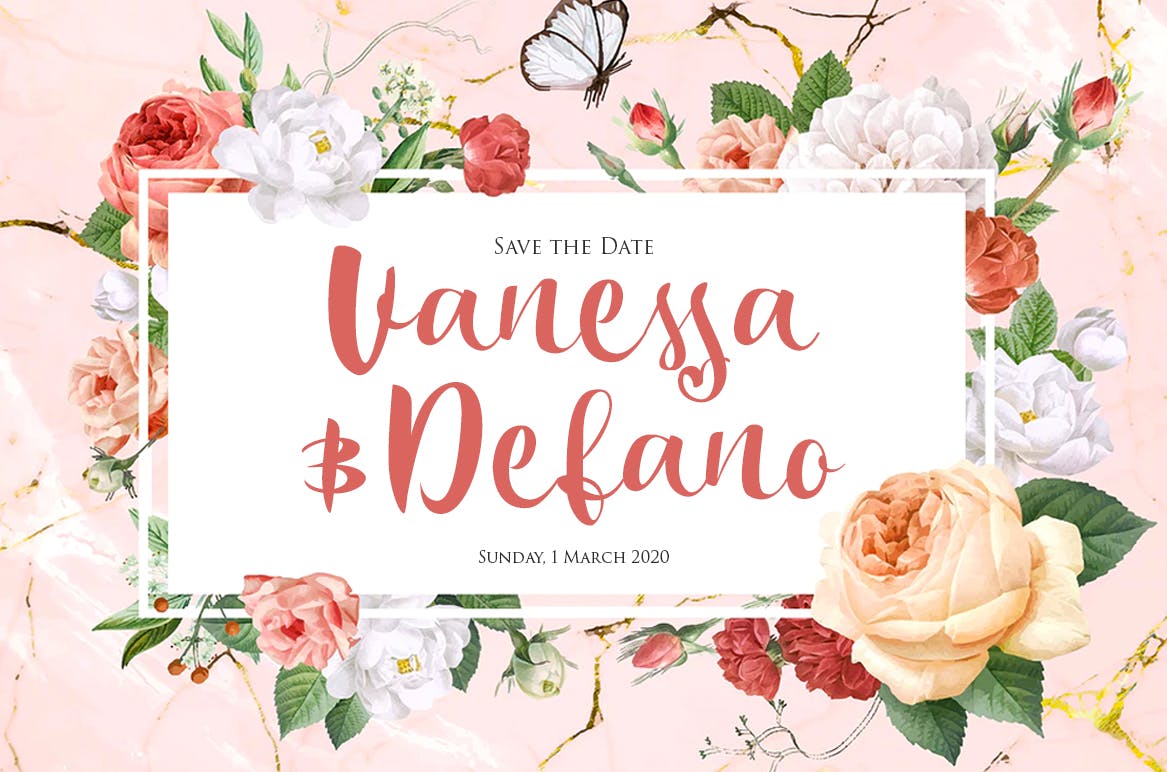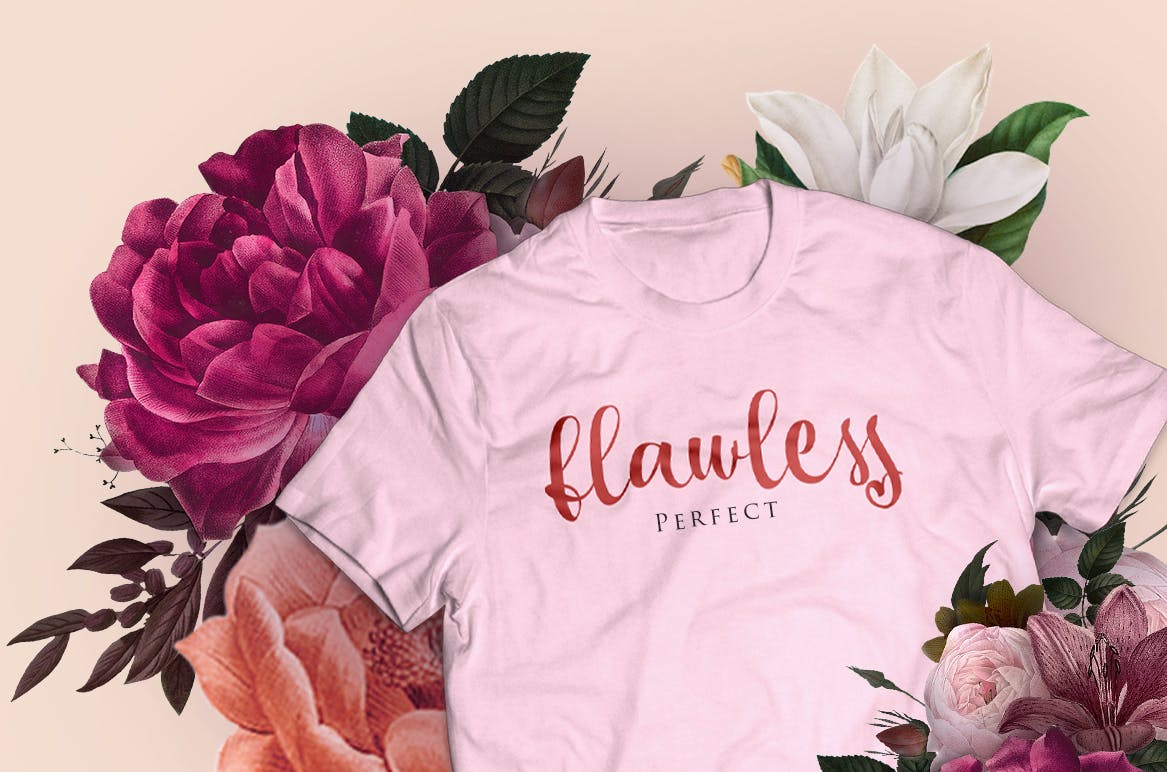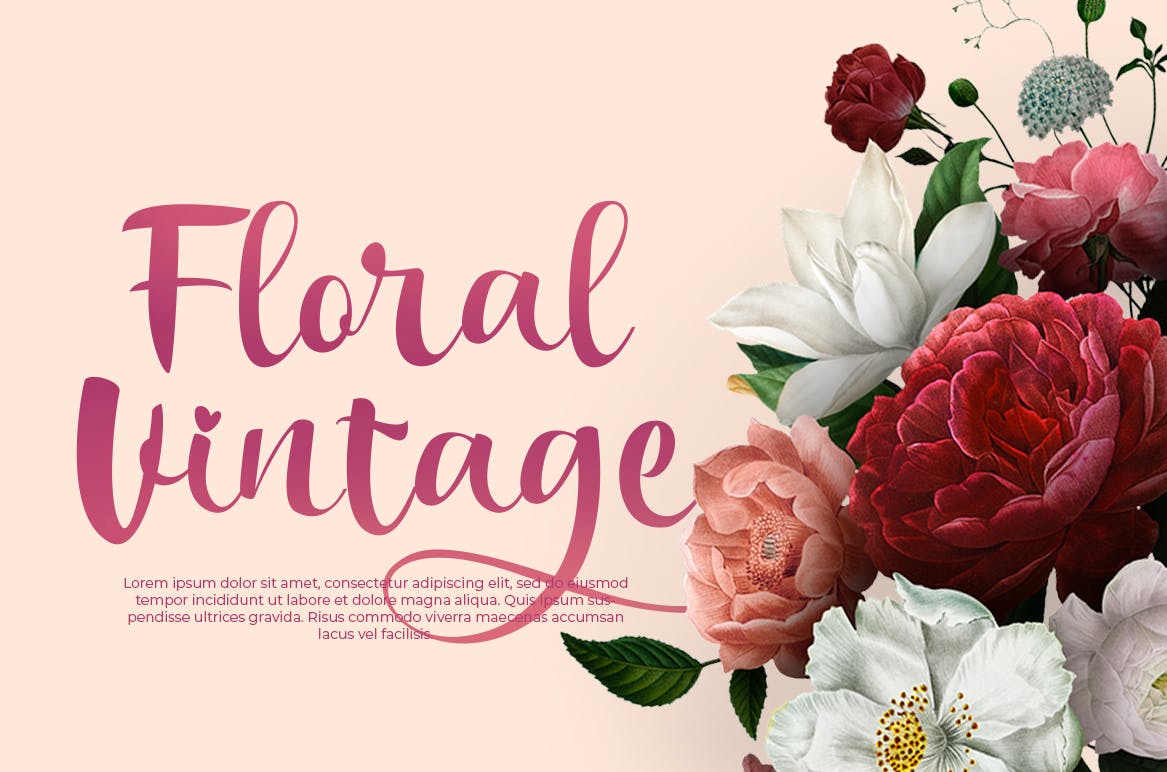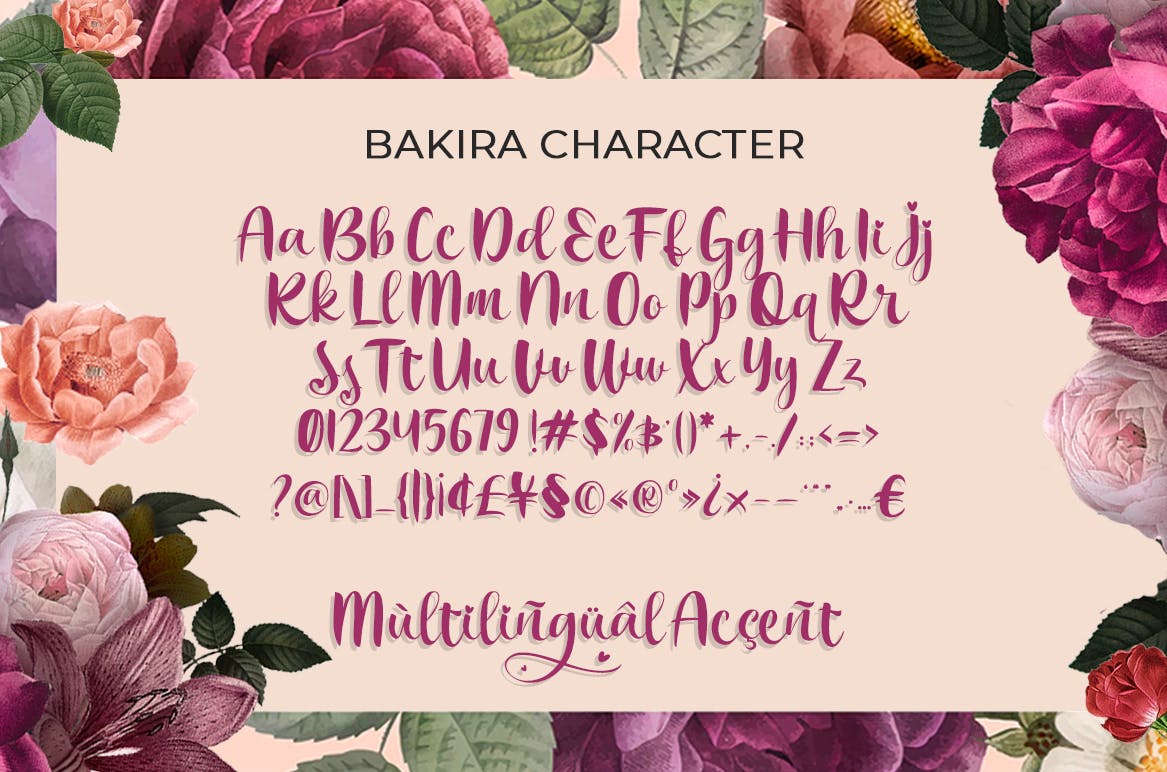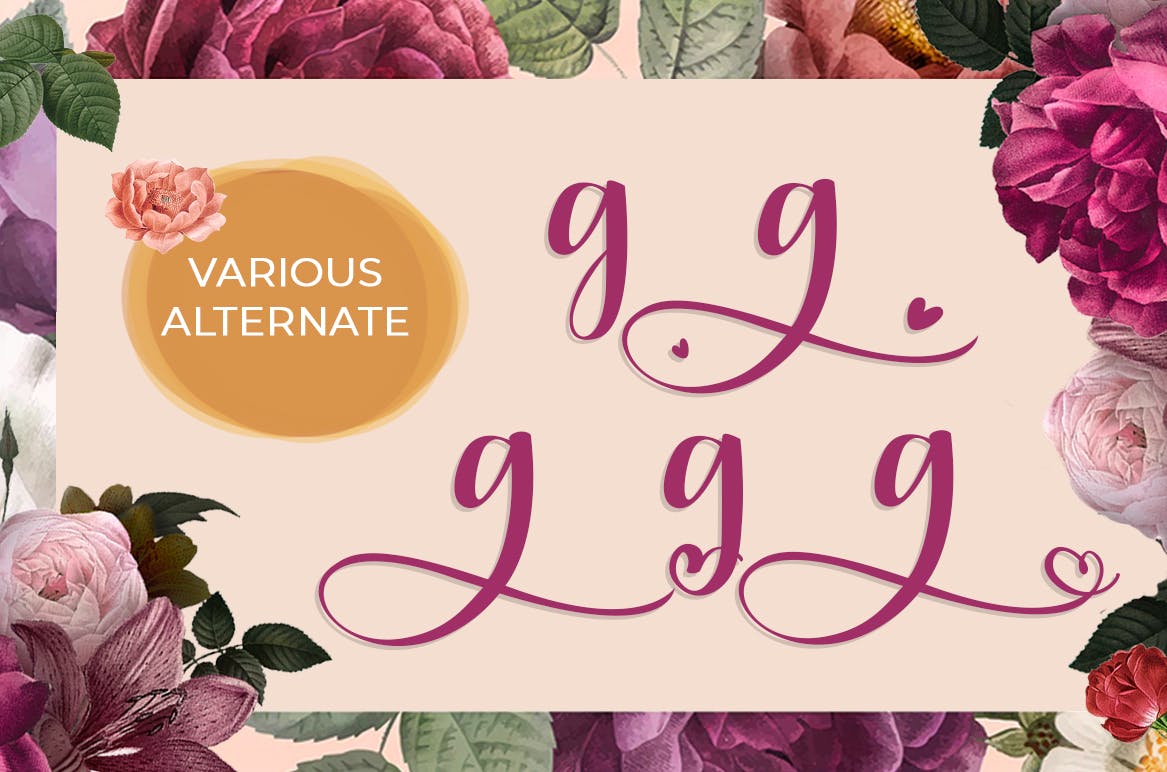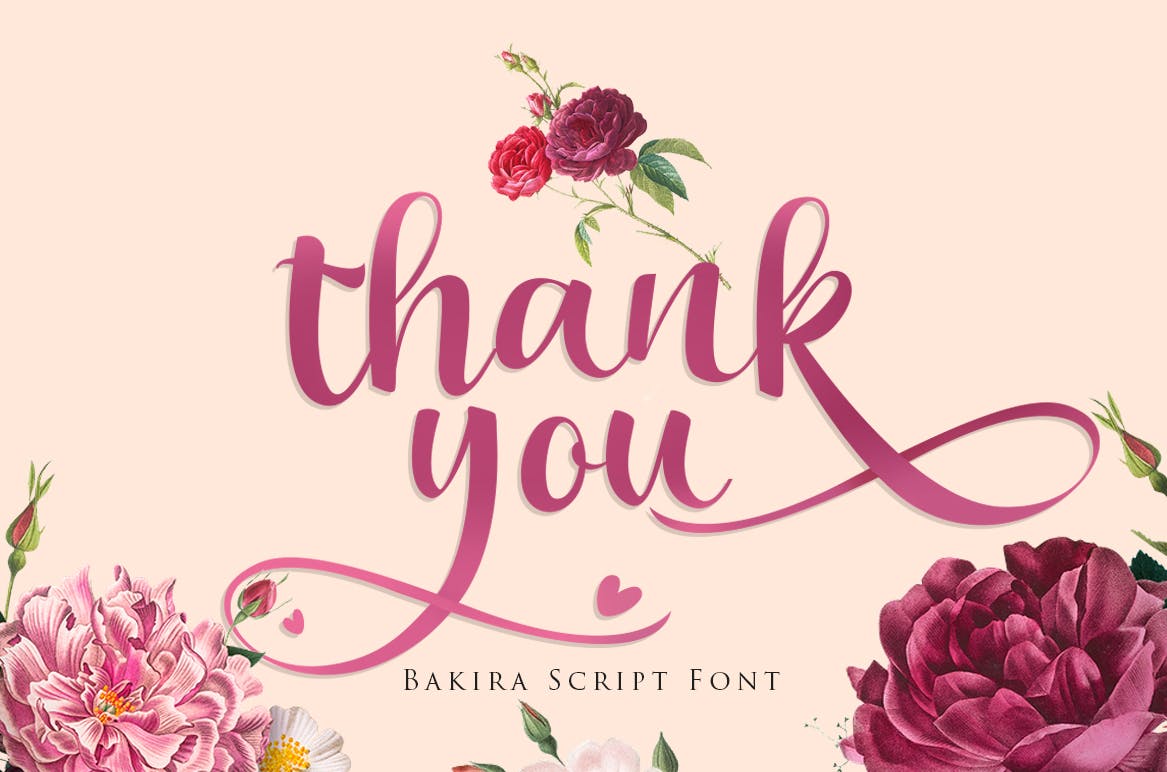
Free Demo Bakira Script Font
Free Demo Bakira Script Font is a calligraphy font that presents with a smooth handwritten style. It comes with 215 glyphs that will help you to use it according to your needs. It is perfect for branding projects, invitation designs, product packaging, business cards, etc. However, this demo font is coming with a personal use license, but go purchasing it to get more features.